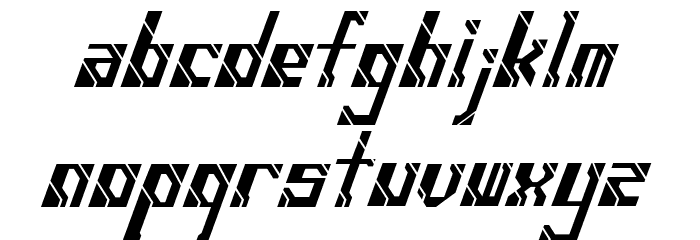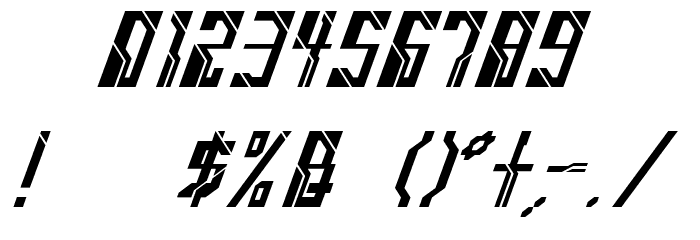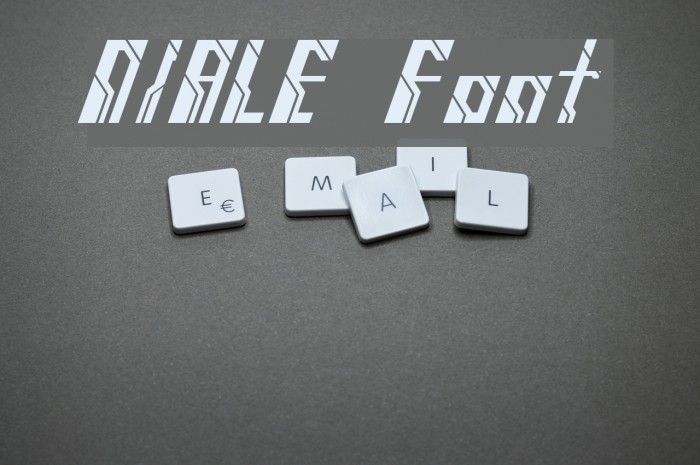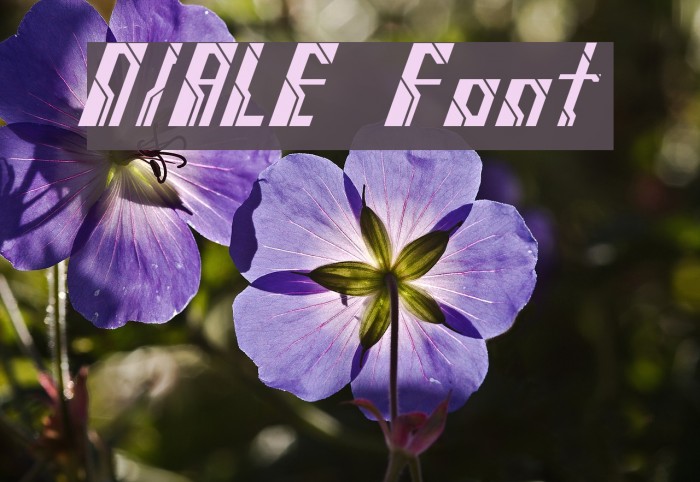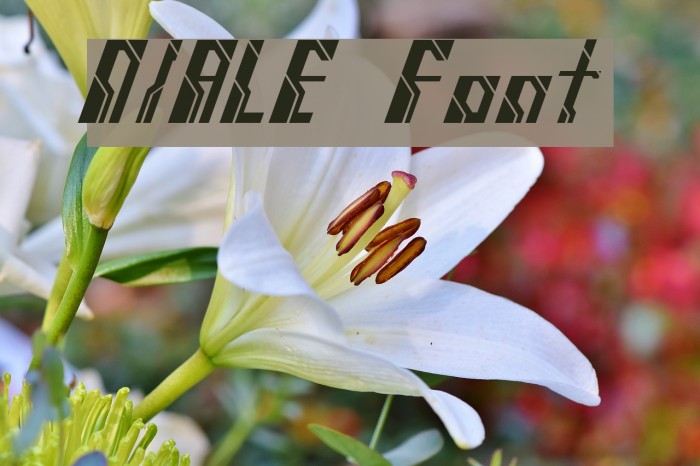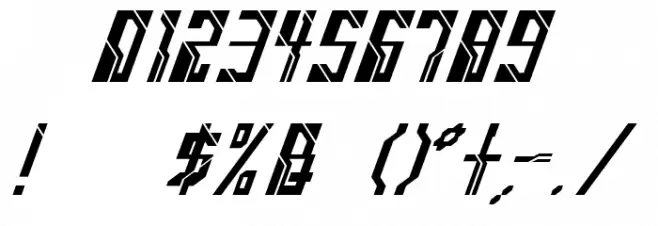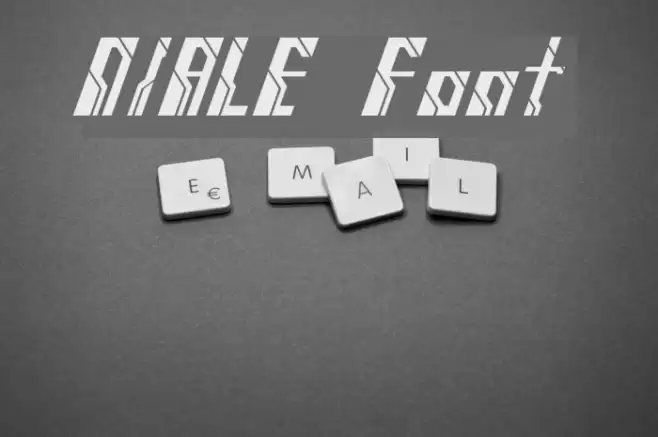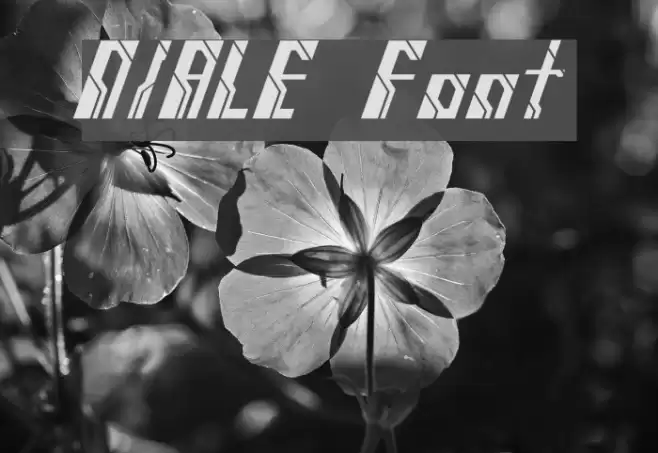
NIALE Font
This font features a bold, angular design with a futuristic and dynamic appearance. The characters are constructed with sharp, geometric lines and a distinct slant, giving them a sense of motion and energy. The uppercase and lowercase letters maintain a consistent style, with the uppercase being more pronounced and the lowercase slightly more compact. Numbers and special characters follow the same angular and bold aesthetic, ensuring uniformity across all elements. The font's unique style makes it stand out, ideal for projects that require a modern and edgy look.
A bold, angular font with a futuristic and dynamic design.
- Proposed Projects: Ideal for sci-fi themed projects, video game titles, posters, and branding that requires a modern and edgy aesthetic.